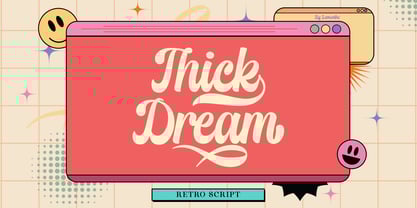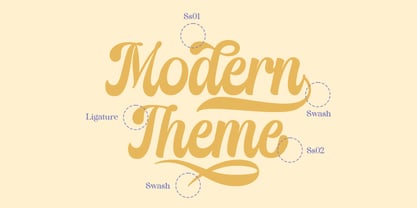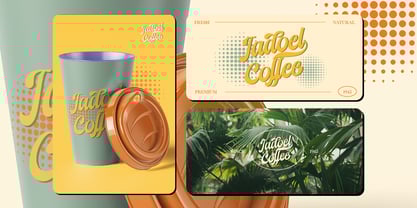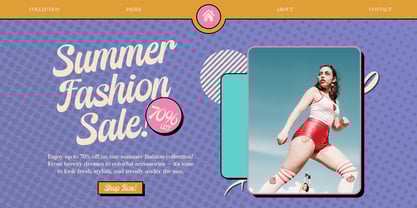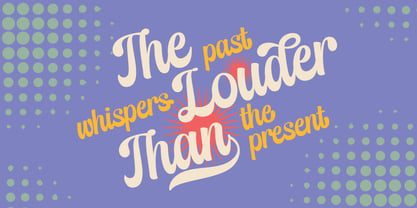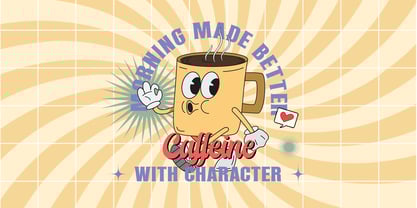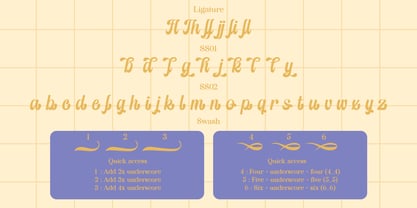
Thick Dream
by Lemonthe
The Thick Dream Font Family was designed by Dwi Ahidian and published by Lemonthe. Thick Dream contains 1 styles.
Thick Dream is a bold retro script font featuring smooth letter flow, soft proportions, and stylish swashes. It is designed to deliver a strong visual presence while maintaining a relaxed and friendly feel, making it suitable for various design needs such as logos, posters, packaging, branding, and headlines.
Quick access swash:
- Ending swash: add 2x-4x underscore after lowercase
- Underline swash : add number(4-6) + underscore + number(4-6)
"Lemonthe is a type foundry operated by Dwi Ahidian, a letter enthusiast who enjoys calligraphy and loves experimenting with letter forms. Lemonthe provides a captivating collection of typefaces, each carrying a creative and unique experimental touch, meticulously crafted by hand. Dedication to detail ensures that some typefaces emanate a deep and serious aesthetic, while others showcase a more playful and creative side."